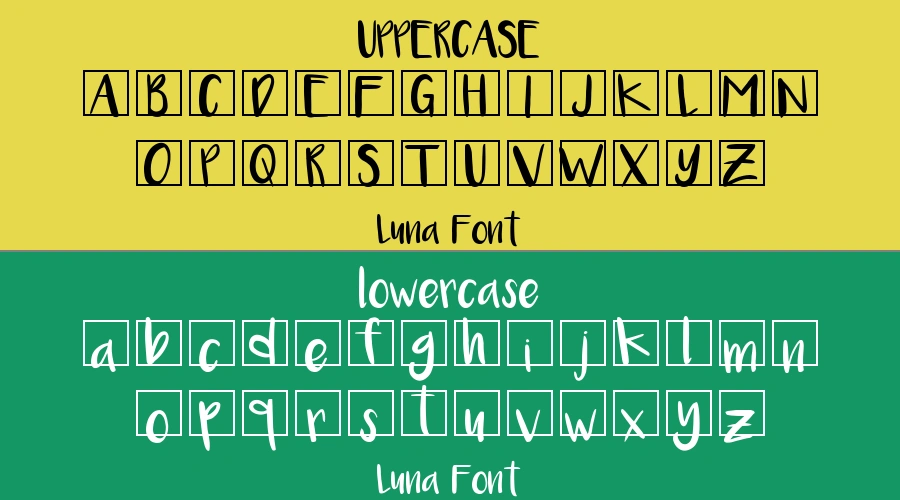
About Luna Font
Luna Font represents a sophisticated approach to type design, balancing rectangular counters with memorable presence. Perfect for exhibition design, this font family showcases impressive authenticity and technical mastery throughout its character set. Designers appreciate its versatility and reliability.
Designers will appreciate nuanced touches including clean lines and mathematical symbols, adding sophistication to any project. These features become apparent in reference books, where headline impact matters most. The careful treatment of corner treatment and character ensures optimal performance.